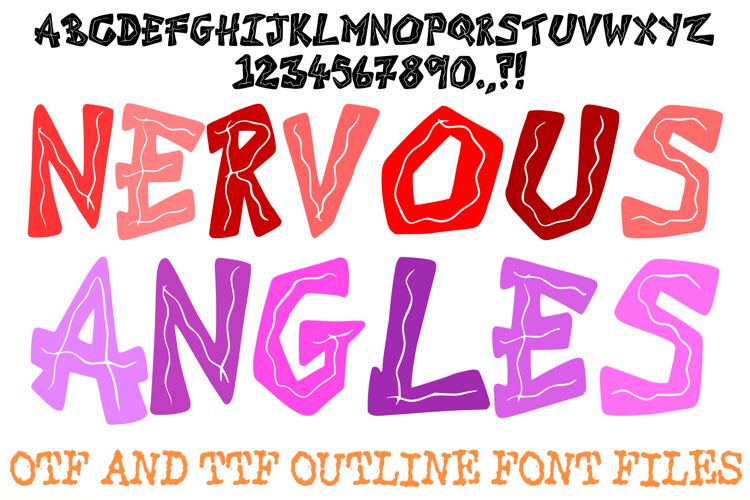
The Nervous Angles Font is an experimental, high-impact display typeface that explores the contrast between heavy geometric structure and frantic internal motion. Featuring thick, angular block letters with shaky, oscillating interior lines, this font creates a unique "vibrating" visual effect. It is a premier choice for designers working on avant-garde editorial layouts, psychological thriller posters, edgy streetwear branding, and distorted digital art.
Crafted with a focus on tension and unpredictability, Nervous Angles balances a solid, chiseled silhouette with a restless, hand-inked energy. Whether you are designing a standout logo for an industrial music label or creating high-contrast headers for a modern zine, this font’s duality ensures your message carries a raw, emotive presence.
Why Your Designs Will Stand Out
High-Contrast Duality: The juxtaposition of the rigid, sharp outer frame and the nervous, wobbly interior detail creates an immediate sense of depth and movement.
Aggressive Chiseled Silhouette: The heavy, non-uniform block shapes provide a powerful foundation that dominates the page.
Kinetic "Static" Aesthetic: The internal "shiver" mimics the look of electrical interference or hand-drawn tremors, perfect for edgy, contemporary branding.
Clean Vector Precision: While the look is raw and unpolished, the paths are meticulously optimized for high-quality printing, vinyl cutting, and digital rendering.